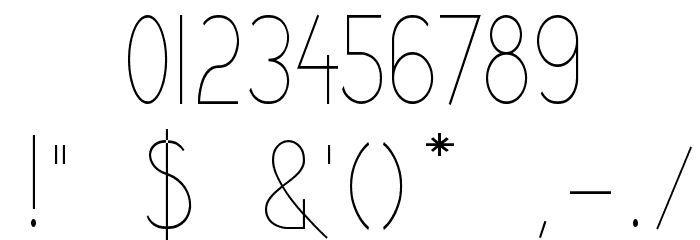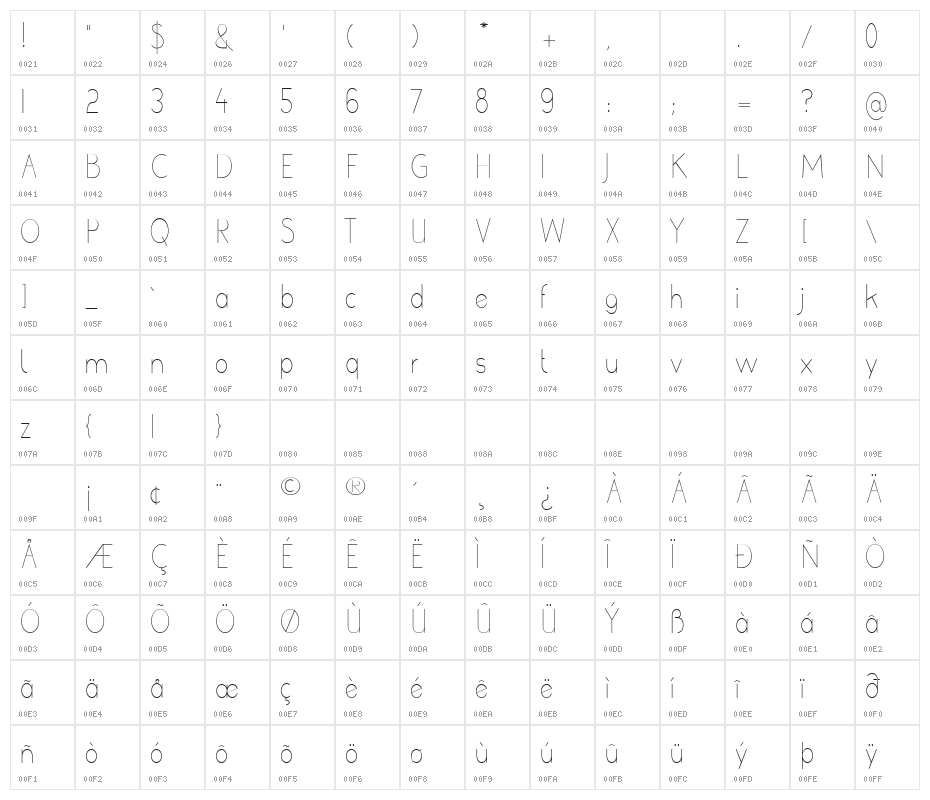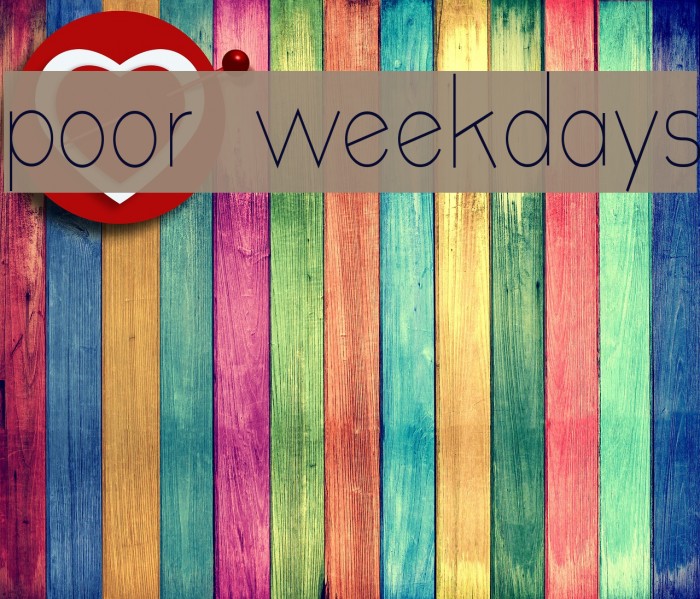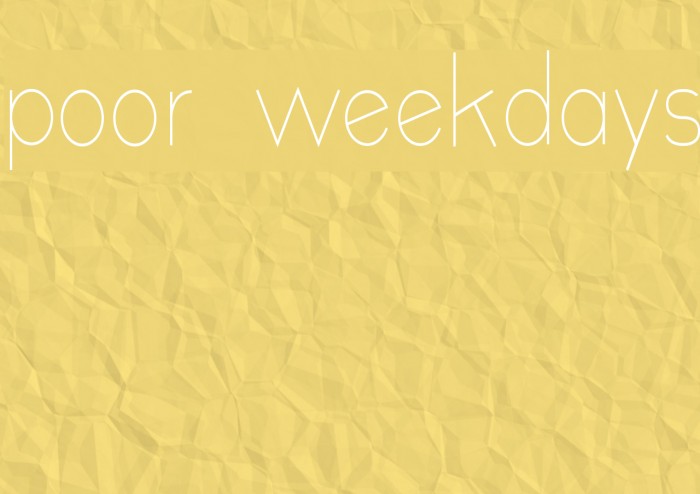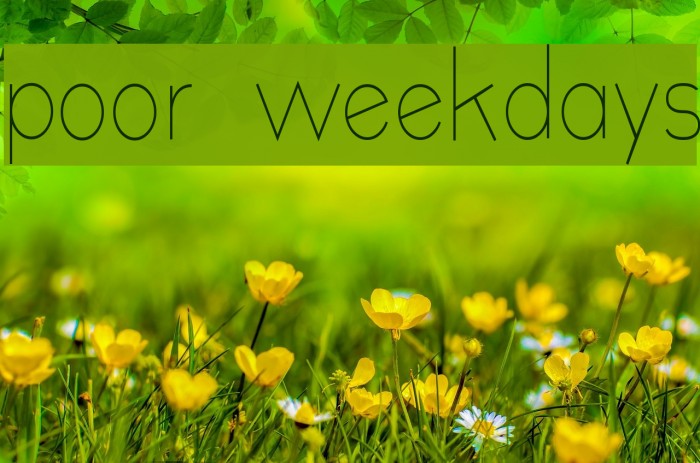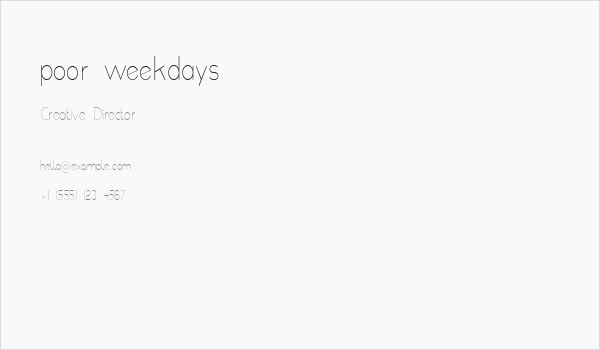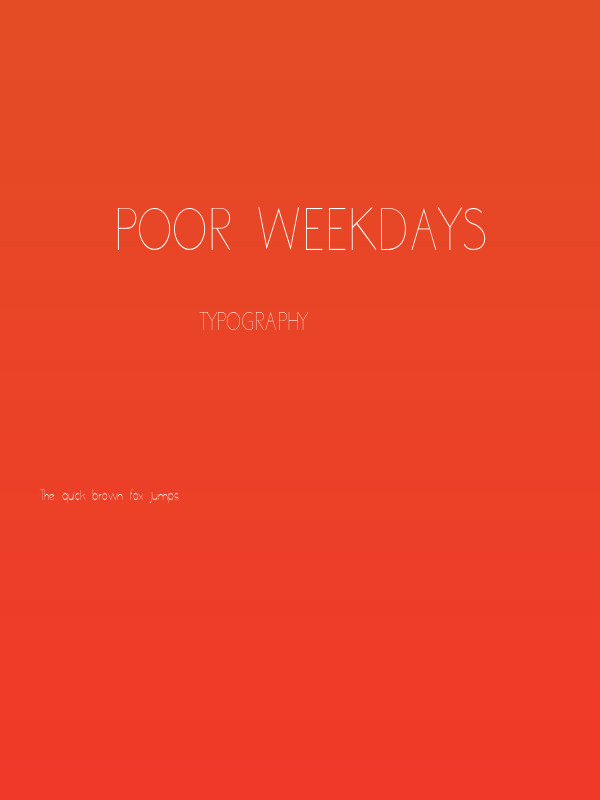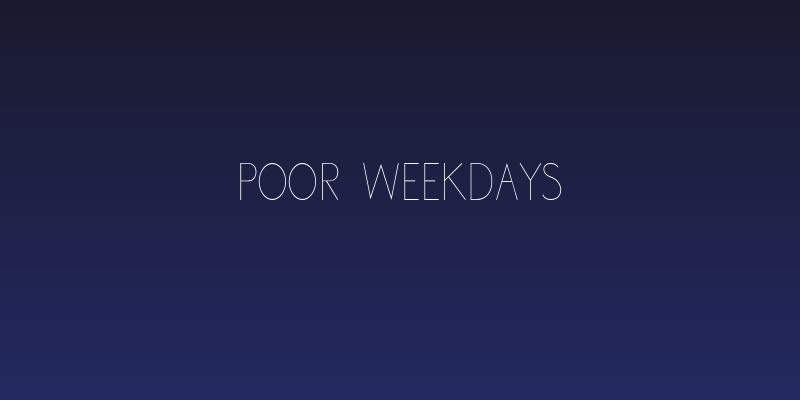
poor weekdays Font
poor weekdays Description
This font features a clean and minimalist design with thin, uniform lines that create a sense of elegance and simplicity. The characters are evenly spaced, contributing to a balanced and airy appearance. The uppercase letters are tall and slender, while the lowercase letters maintain a consistent height, enhancing readability. The numerals are straightforward and align well with the overall aesthetic. Special characters are designed with the same thin strokes, ensuring a cohesive look across all elements. This font's modern and sleek style makes it versatile for various design applications.
| Proposed Projects | Ideal for modern branding, minimalist posters, elegant invitations, and sleek website headers. |